Perfect Font Recommendations
Weddingday Wedding Script
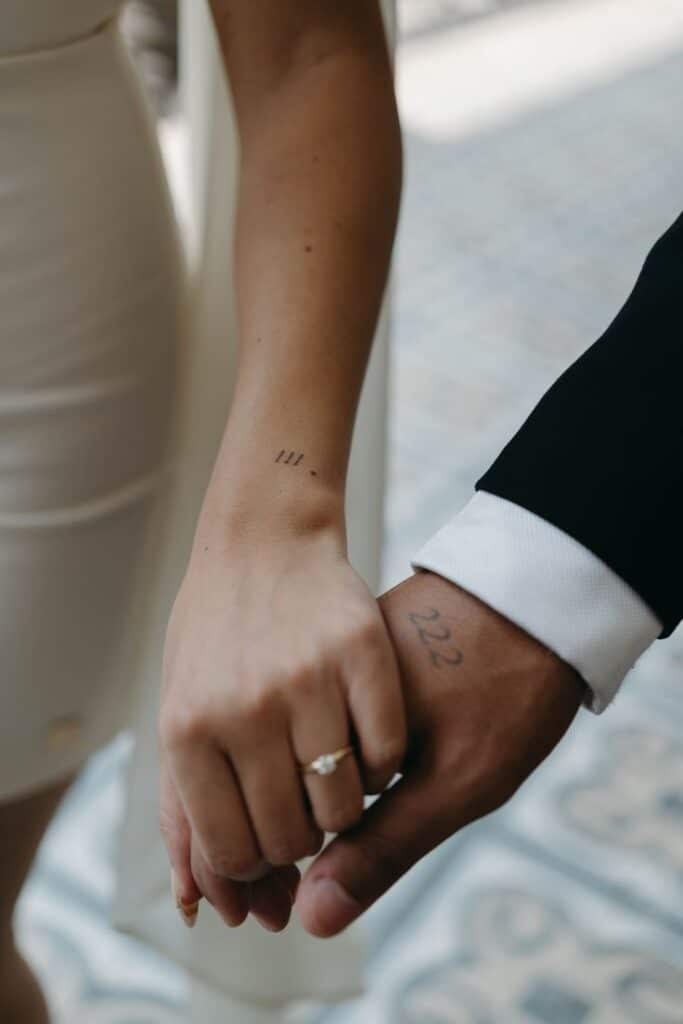
Weddingday offers an elegant cursive style with smooth connections between letters, making it ideal for romantic or feminine name tattoos. Designed by Billy Argel, this font is free for personal use on FontSpace.
Ananda Black Bold Style
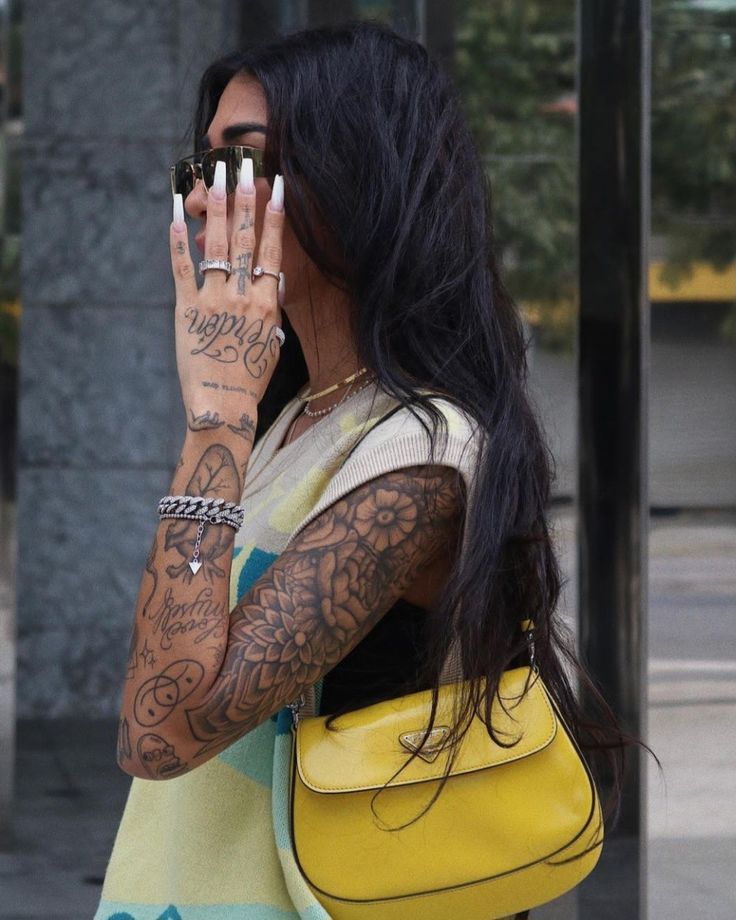
Ananda Black features thick strokes and high contrast, ensuring names remain legible on larger areas like the forearm or back. Download it without charge for personal tattoos at FontSpace.
Lucy Said Ok Casual Cursive
Lucy Said Ok brings a playful, hand-lettered feel that suits informal or whimsical name tattoos. Its relaxed curves work well on wrists and ankles. Find it for free on FontSpace.
California Sans Serif Flair
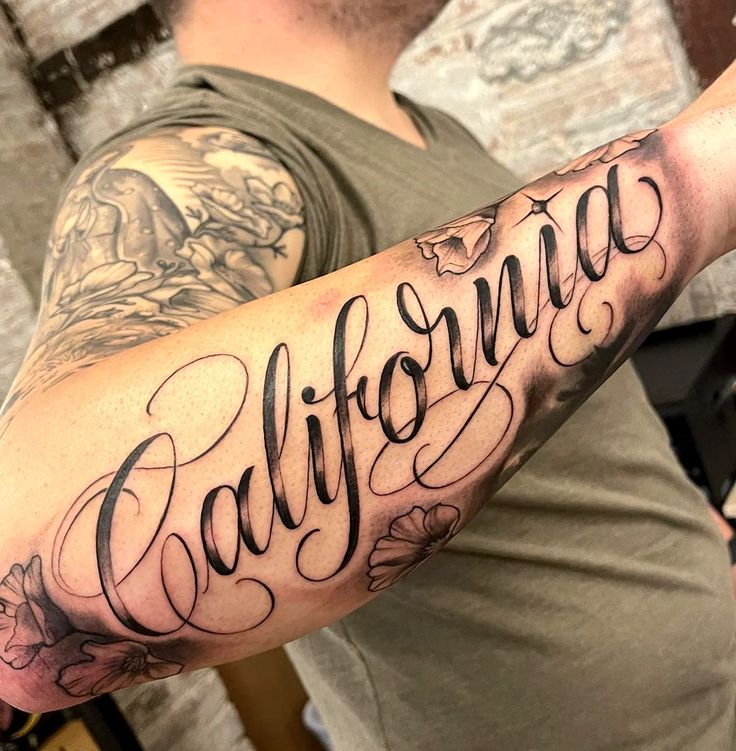
California delivers a modern sans serif look with subtle flared terminals that add character without compromising readability. It’s a versatile choice for both small and medium-sized name tattoos, available at FontSpace.
Mardian Calligraphy Elegance
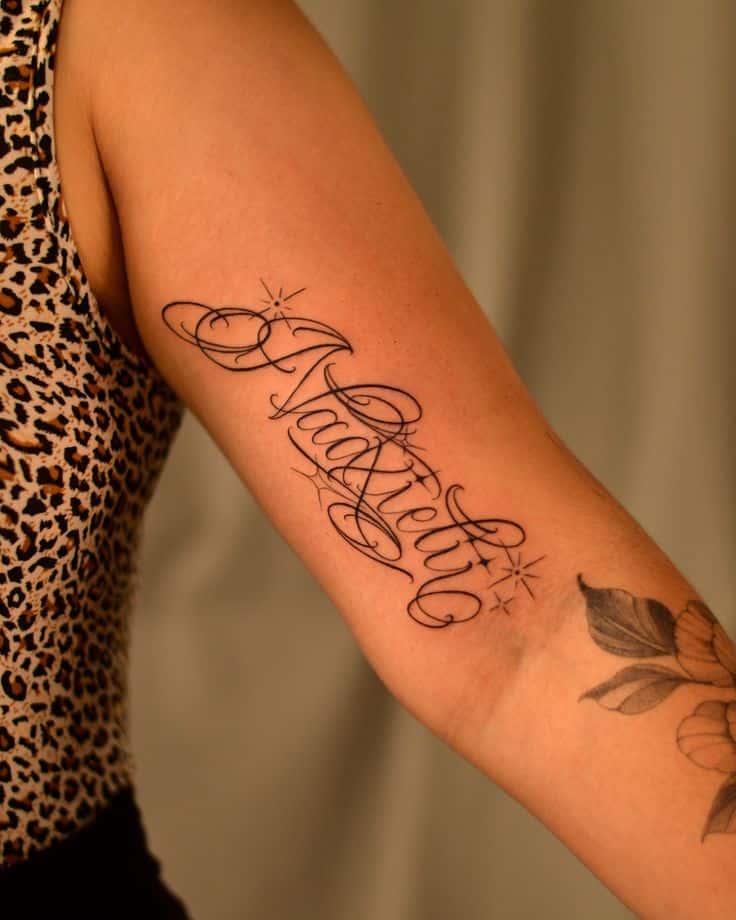
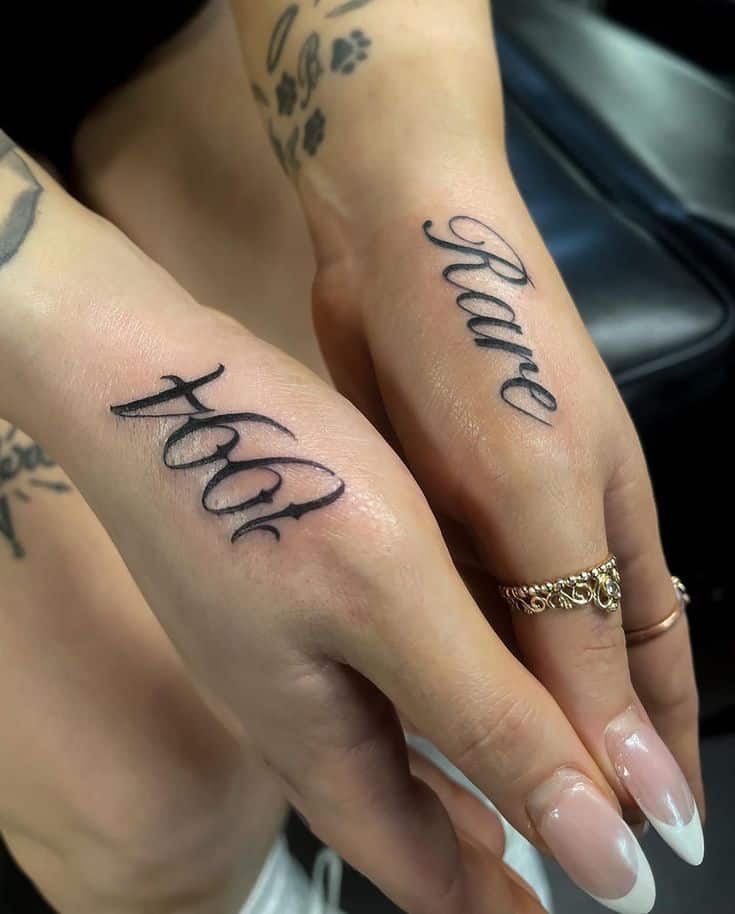
Mardian is a bespoke calligraphy font created with a pen-and-ink approach, lending name tattoos a fluid, artistic flow that accentuates body contours. Tattoo artists often recommend it for its handcrafted feel (Stories & Ink).
Mythshire Artistic Flourish
Mythshire blends classic calligraphic strokes with ornate details, giving name tattoos a timeless, storybook quality. Its delicate loops and swashes create visual interest on ribs or collarbones (Stories & Ink).
Zapfino Flowing Script
Zapfino delivers an exuberant, brush-style script with dramatic contrast between thick and thin strokes. This font suits names with multiple letters, flowing naturally along curves of the body (Stories & Ink).
Avenir Minimalist Typeface
Avenir is a geometric sans serif praised for its clean lines and modern simplicity. It’s recommended for very small name tattoos to prevent letters from closing up over time (Stories & Ink).
Futura Geometric Clean Lines
Futura shares Avenir’s minimalist heritage with sharp, circular forms that maintain clarity at any size. It works especially well on ankles and fingers where space is limited (Stories & Ink).
Blackletter Old English Style
Blackletter delivers a bold, medieval aesthetic with intricate serifs and angular strokes, perfect for short names or initials in capital letters. This style pays homage to tradition and demands attention (Stories & Ink).
Picking Name Tattoo Fonts
Reflect Personality
Choose a font that aligns with the subject’s character—italic scripts for artists, bold serifs for strong personalities, or playful cursive for a lighthearted tribute.
Prioritize Legibility
Ensure each letterform reads clearly at your chosen size. Minimalist typefaces like Avenir or Futura can prevent letterforms from merging over time.
Match Tattoo Size
Fine-lined scripts shine on larger canvases, while geometric or serif fonts often work better for tiny pieces on wrists, fingers, or behind the ear.
Consider Custom Handwriting
Personal handwriting samples—like a loved one’s signature—add emotional depth and uniqueness to name tattoos, creating a bespoke lettering style.
How do I ensure my name tattoo remains legible over time?
Opt for clean, minimalist fonts like Avenir or Futura and avoid overly intricate scripts at small sizes to prevent ink bleed and letter merging.
Can I use my own handwriting as a tattoo font?
Yes, supplying your artist with a clear sample of your handwriting or a signature allows them to craft a custom stencil that preserves personal meaning.
Which font suits a minimalist name tattoo?
Geometric sans serifs such as Avenir, Futura, or Helvetica deliver crisp, timeless designs that remain easy to read even in small formats.
What fonts work best for short names?
Old English styles like Blackletter or Cambridge excel with short names or initials in all caps, offering an ornate yet balanced appearance.